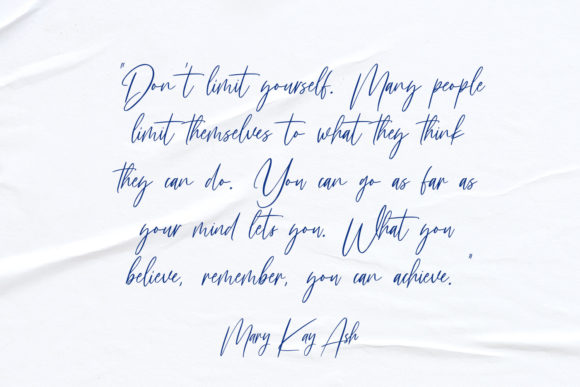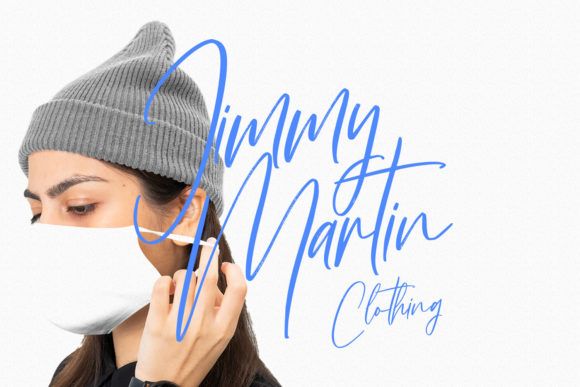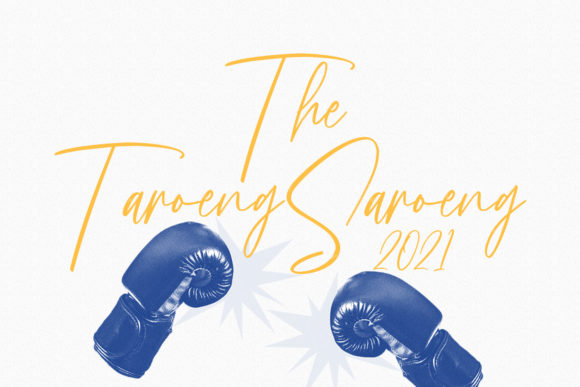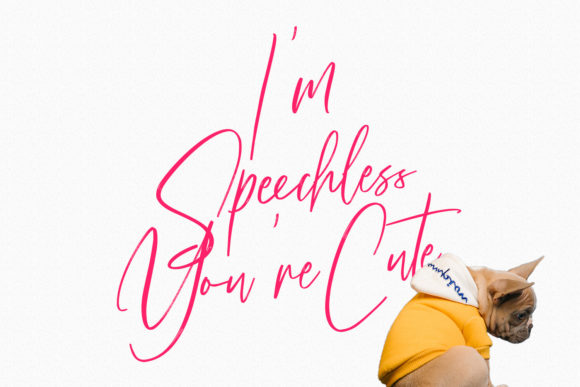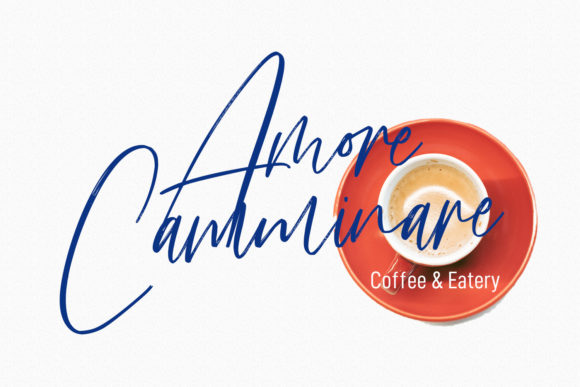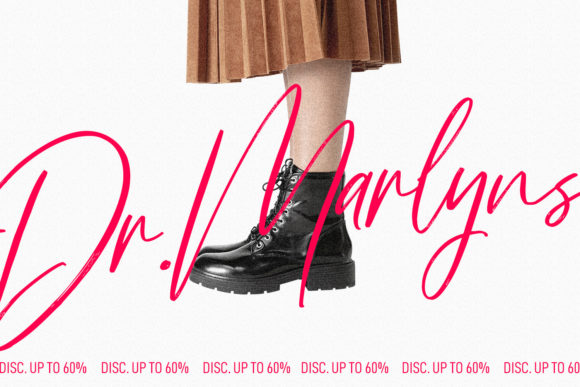
The Elusive Perfect Font: My Encounter with Frank Martin
Ah, the quest for the perfect font – a journey familiar to many designers, crafters, and creative hobbyists. I recall a particularly frustrating project where my client’s brand required a sophisticated, elegant look. Hours were spent scrolling through font libraries, but nothing seemed quite right. That was until I stumbled upon Frank Martin Font. Its chic, stylish script immediately caught my eye, and I knew I had found a potential gem.
Frank Martin Font: A Comprehensive Review
- ✨ Sophisticated and Elegant: Frank Martin Font exudes a sense of luxury and refinement, making it perfect for high-end projects.
- ✅ Stylish Alternates and Ligatures: The font’s OpenType features offer a range of stylish alternates and ligatures, allowing for creative flexibility.
- 💫 Versatility: Frank Martin Font can be used for a variety of projects, from branding and advertising to packaging and stationery.
While Frank Martin Font is an excellent choice, there are a few minor considerations to keep in mind:
- 🤔 Legibility at Small Sizes: As with many script fonts, Frank Martin may lose legibility at very small sizes. It’s best used at larger sizes (12pt or above) for optimal readability.
- ⚠️ Limited Use in Body Text: Due to its script nature, Frank Martin Font is better suited for headings, titles, and short paragraphs rather than lengthy body text.
The Story Behind Frank Martin Font
Frank Martin Font was designed with the intention of capturing the essence of sophistication and elegance. Its creator drew inspiration from classic calligraphy and modern script fonts, aiming to craft a typeface that would be both versatile and stylish. The result is a font that effortlessly elevates any project with its refined, luxurious feel.
Q: What makes Frank Martin Font unique?
A: Frank Martin Font’s unique blend of sophistication, elegance, and stylish alternates sets it apart from other script fonts.
Q: Is Frank Martin Font suitable for body text?
A: While Frank Martin Font is beautiful, it’s better suited for headings, titles, and short paragraphs. For lengthy body text, consider a more traditional serif or sans-serif font.